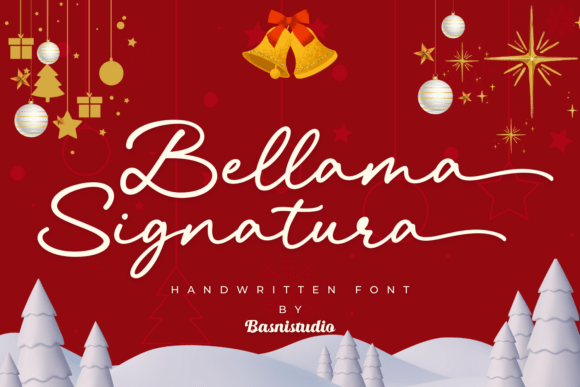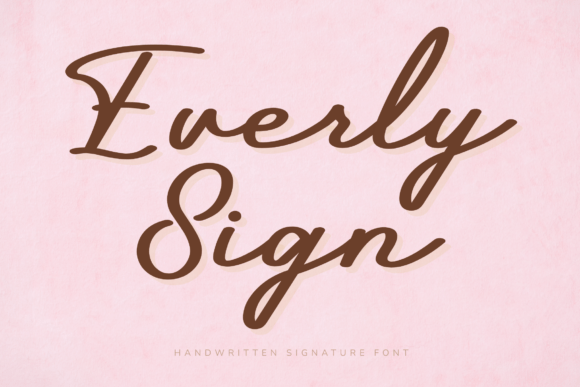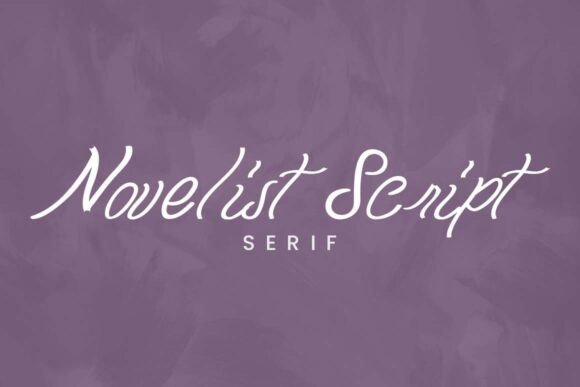
The Signature Look: 15 Elegant Signature Fonts to Sign Off With in 2026
A signature font lives or dies by where you put it. The face that looks perfect as a photographer’s watermark can fall apart as a tiny app icon, so these 15 elegant signature fonts are grouped by the job you need them to do rather than by style alone. If you are curious about why a handwritten name carries so much weight, the idea of the signature has a longer story than you might expect.
The thread through all of these is legibility at the size you will actually use. Monoline faces survive small far better than high-contrast ones, and I have flagged that as we go. For the broader handwriting category, see modern script fonts, and when you need a serif to sit beside the mark, luxury serif fonts.
Soft, personal and clearly hand-drawn, the look most photographers and makers want for a watermark or mark.
Amorate Signature
Amorate is a signature-style script built around long, flowing strokes and refined handwritten detailing, the kind of lettering that mimics a real autograph. That makes it a natural for personal branding, photographer and artist marks, and watermark-style logos. The extended connectors give names a confident sweep, so leave room for them to stretch. Pair it with a clean sans for any supporting text and keep the signature as the focal point. Because the strokes are fine, set it large enough that the detailing reads, and a single tone keeps it sharp.
Novelist
Novelist is a handwritten signature script with a fluid, intimate movement, made to feel personal rather than printed. It suits creative branding, signoffs, and product marks where a human touch matters. The connected letters give a name a genuine, jotted quality, so it works beautifully as a logo for a photographer, stylist, or author. Reserve it for the signature itself and let a plain face handle the rest of the layout. Keep it at a size where the connectors stay clear, and a warm single color sells the handwritten effect.
Everly Sign
Everly Sign is a handwritten signature face with a soft, feminine character that reads as gentle and personal. The relaxed strokes give a name a genuine, jotted feel, ideal for photographers, stylists, and boutique brands. It leans delicate, so set it large enough that the fine connectors stay clear and reserve it for the signature itself. Pair it with a minimal sans and a soft palette, keeping the rest of the layout plain. In a single warm tone, it gives personal branding a tender, hand-signed quality.
For a modern brand mark
Cleaner, even-weight scripts that read as current and hold up small. The most practical group for digital branding.
Majestica Royale
Majestica Royale is a modern luxury script with a slender, rhythmic build that reads as graceful and a little regal. Its even, refined strokes make it a strong signature face for upscale branding, where a name needs both flow and polish. The consistent line weight helps it stay legible at the smaller sizes a logo often demands. Pair it with a minimal serif or sans and keep the script as the centerpiece. In a single deep tone with open spacing, it gives a personal mark a confident, high-end finish.
Vantage Costieno
Vantage Costieno is a monoline script, meaning its strokes hold a single even weight from start to finish. That gives it a clean, modern look that suits contemporary signatures and logotypes especially well. The consistent line reads clearly even when scaled down, which is handy for app marks and small-format branding. Pair it with a minimal sans and let the script carry the name. Because there are no fragile hairlines, it’s forgiving across print and screen, though a little open spacing still keeps the connectors tidy.
Shina Qatline
Shina Qatline is a monoline script that mixes luxury, vintage, and modern cues into one even-weight face. The consistent stroke makes it both stylish and practical for signatures and logos, since it holds up at smaller sizes. The slight vintage flavor gives a name some character without tipping into nostalgia. Pair it with a clean serif or sans and keep the script as the focal mark. In a single tone with open spacing, it reads as confident and contemporary, a good fit for boutique and personal branding alike.
Berlinda Werni
Berlinda Werni is a smooth monoline script inspired by flowing pen strokes, with an even weight throughout. That consistency gives it a clean, modern look and makes it dependable for signatures and logos at a range of sizes. The lack of fragile hairlines means it survives small-format and on-screen use better than high-contrast scripts. Pair it with a minimal sans and keep the script as the name or mark. A single tone and a little open spacing keep the connectors tidy and the whole thing easy to read.
• Packaging signoff: Bellama Signatura
One thing worth saying plainly: test the mark at its smallest real size before you fall for it. A signature that only works as a hero graphic will frustrate you the first time it has to fit in a footer. If small-size clarity matters most, start with the monoline group. The wider context is in the elegant fonts roundup.